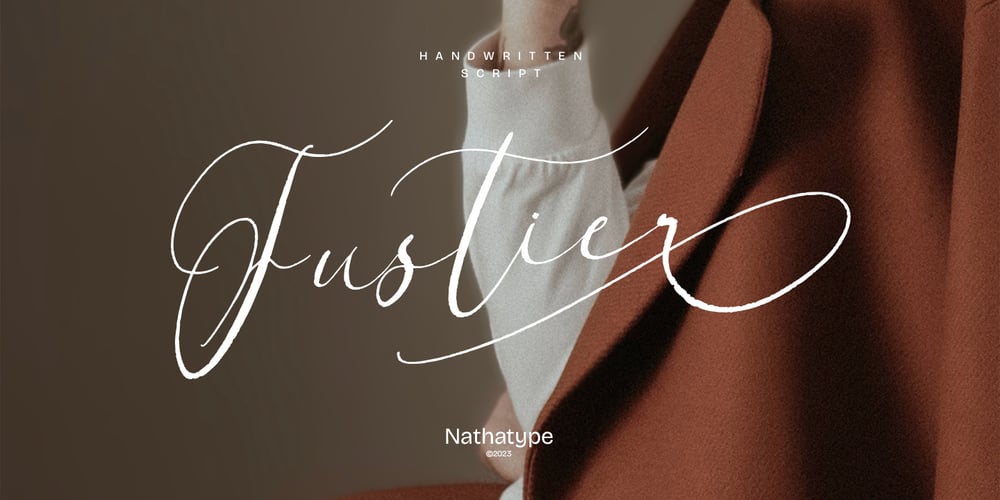
Fustier Font Family was designed by Donis Miftahudin and published by Nathatype. Fustier contains 1 styles and family package options. Fustier is a script font that captures the beauty of handwriting with a mesmerizing twist. The curves and loops dance across the page, evoking the sensation of ink flowing seamlessly from a skilled hand. With an abundance of swinging details, Fustier ensuring a harmonious flow from letter to letter. The generous spacing between letters maintains readability and legibility, You can use this font in headlines, logos, posters, flyers, invitations, name cards, branding materials, and many more.